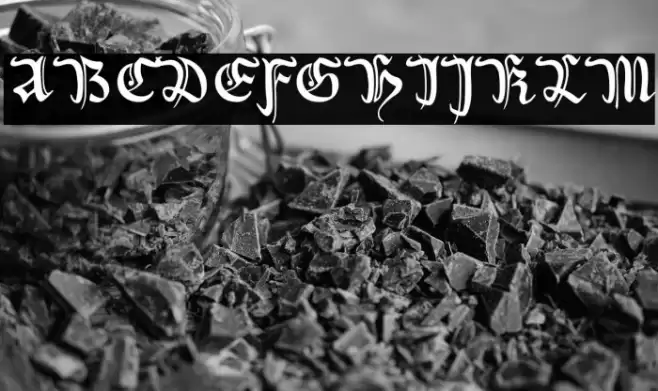
XiBeronne Font
XiBeronne Description
This font exhibits a classic blackletter style, characterized by its intricate and ornate letterforms. The uppercase letters are tall and narrow, with sharp, angular lines and decorative flourishes that give them a gothic appearance. The lowercase letters maintain a similar aesthetic, with bold strokes and elaborate curves that enhance the overall medieval feel. The numerals are consistent with the style, featuring unique shapes and embellishments that align with the font's historical inspiration. Special characters are equally ornate, adding to the font's cohesive and dramatic look.
An ornate blackletter font with gothic, medieval-inspired letterforms from Uncategorized fonts.
- Proposed Projects: Ideal for projects requiring a historical or gothic theme, such as book covers, posters, or event invitations for themed events.
- Character Spacing: Tight
- Overall Style: Vintage
- Use Case: Logos, Headlines, Decorative text